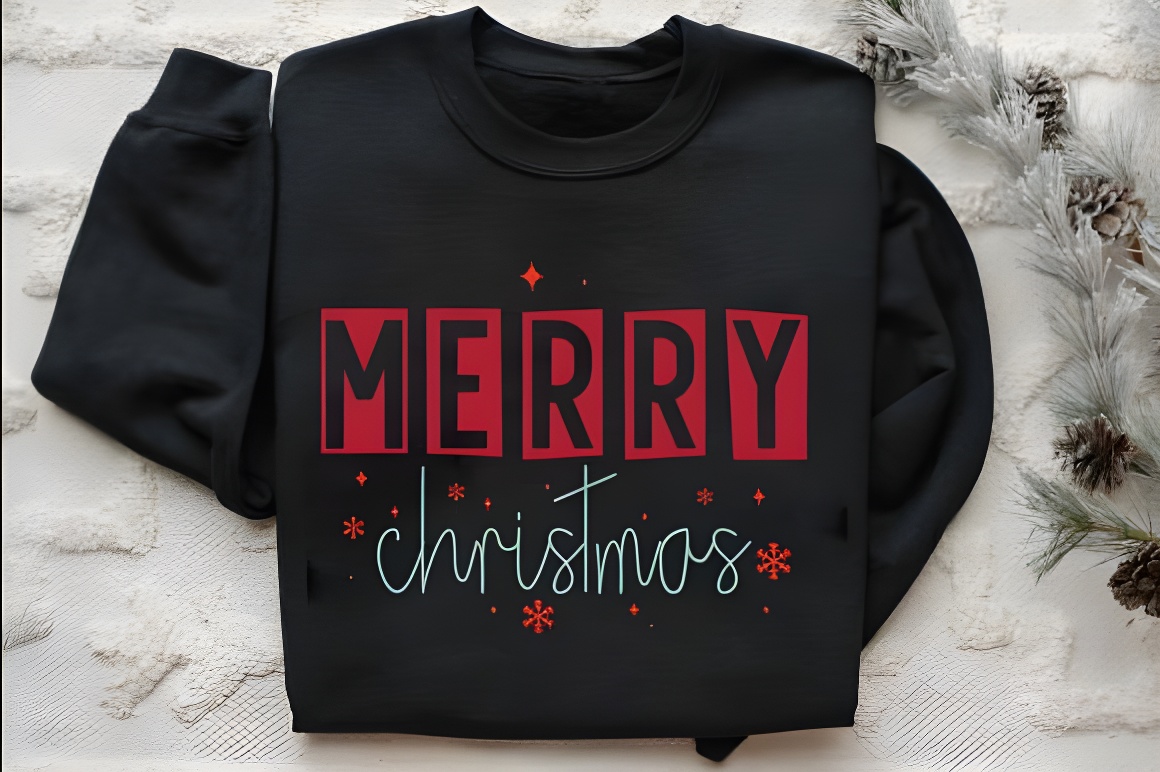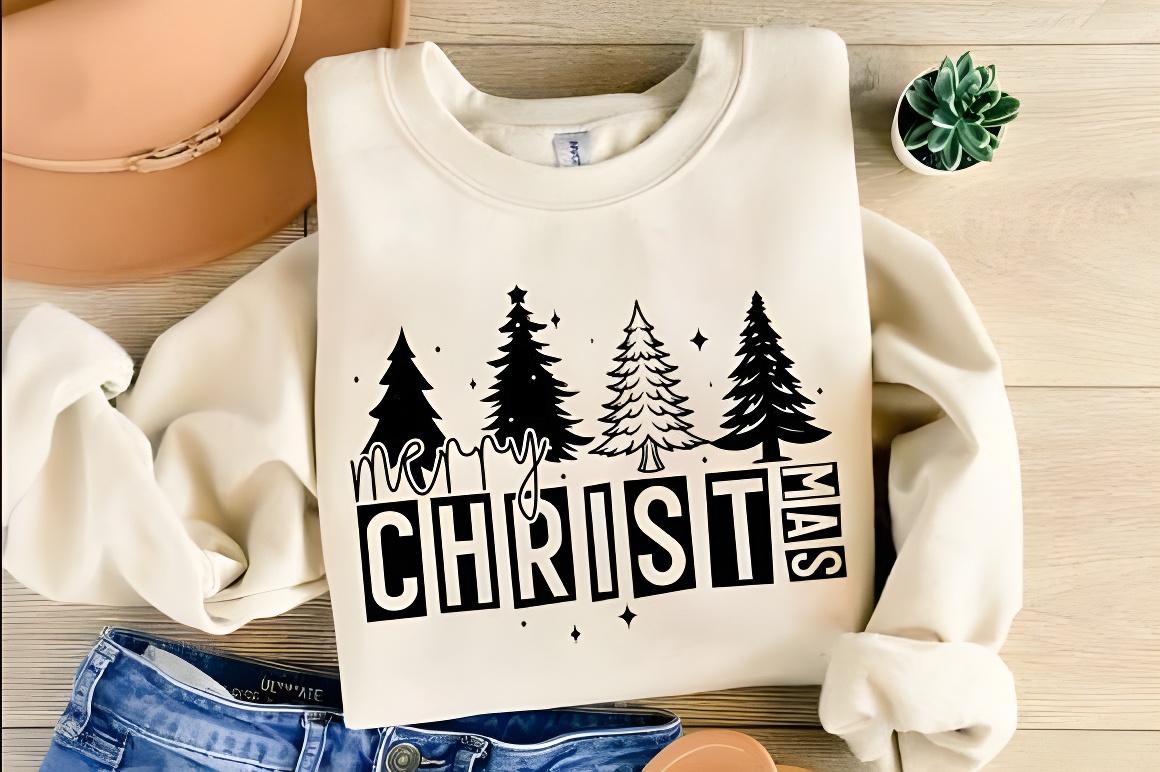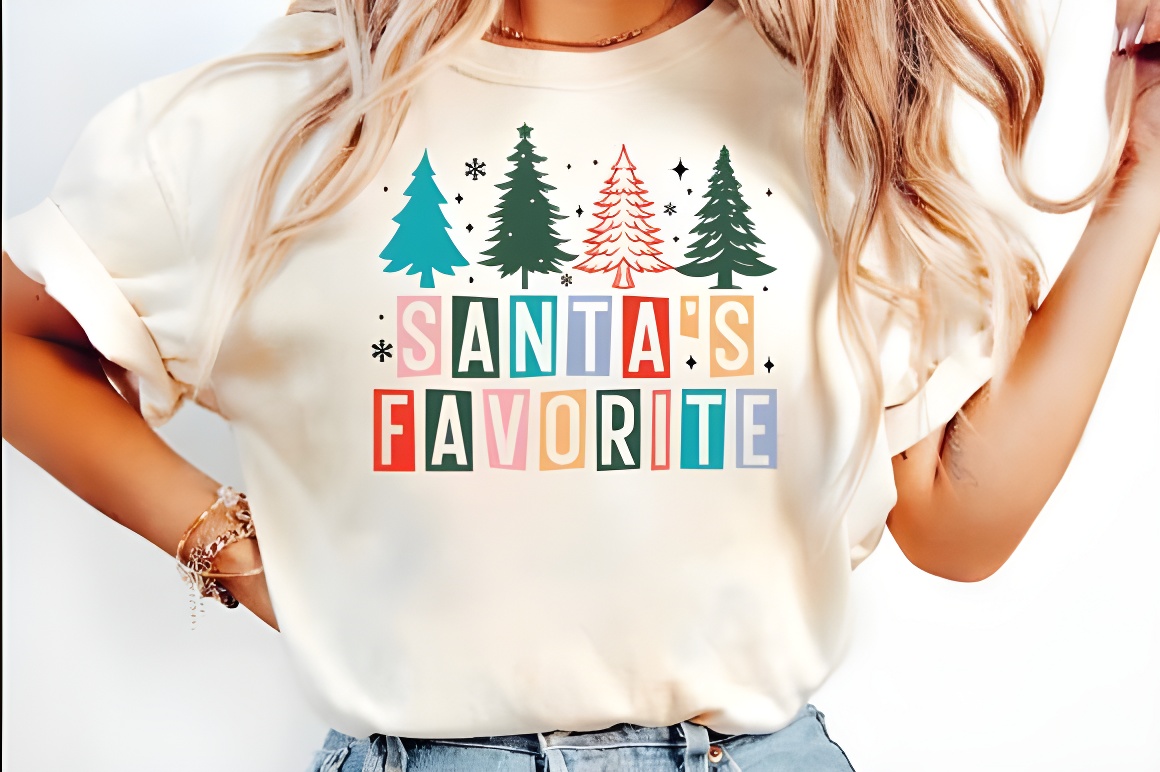
Christmas Vibes Duo Font: Bold Display & Cursive Holiday Typography
Bold display font with sharp edges paired with a festive cursive font. Perfect for holiday designs, cards, and decor. Elevate Christmas projects with this dynamic duo typography set.